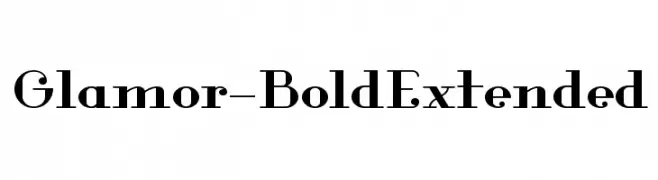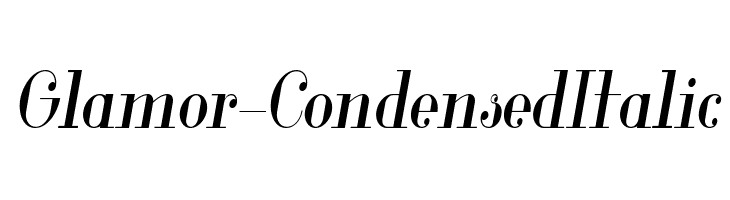
A bold, condensed, and italic font with a modern and elegant style.
A bold, extended serif font with high contrast and elegant details.
A bold, extended italic serif font with a modern and elegant style.
A bold, italic serif font with high contrast and elegant styling.
A sophisticated, condensed italic typeface with high contrast and sharp serifs.
An elegant, high-contrast extended italic font with a classic and sophisticated style.
A refined, high-contrast serif font with elongated, elegant letterforms.
An elegant, high-contrast, light, condensed italic typeface.
An elegant, high-contrast typeface with elongated, stylish characters.
An elegant, high-contrast, light italic font with extended width and classic serifs.